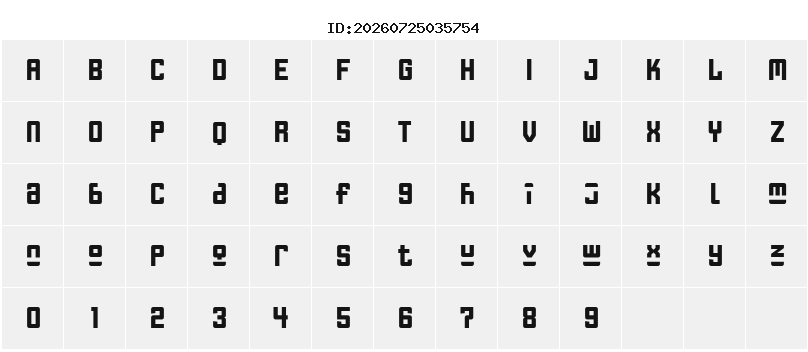
Gothic OneOne Condensed Preview
About Gothic OneOne Condensed.ttf
Gothic OneOne Condensed.ttf is a modern, elegant sans-serif font designed for ultimate readability and visual harmony. Perfect for branding, headlines, web design, and print materials.